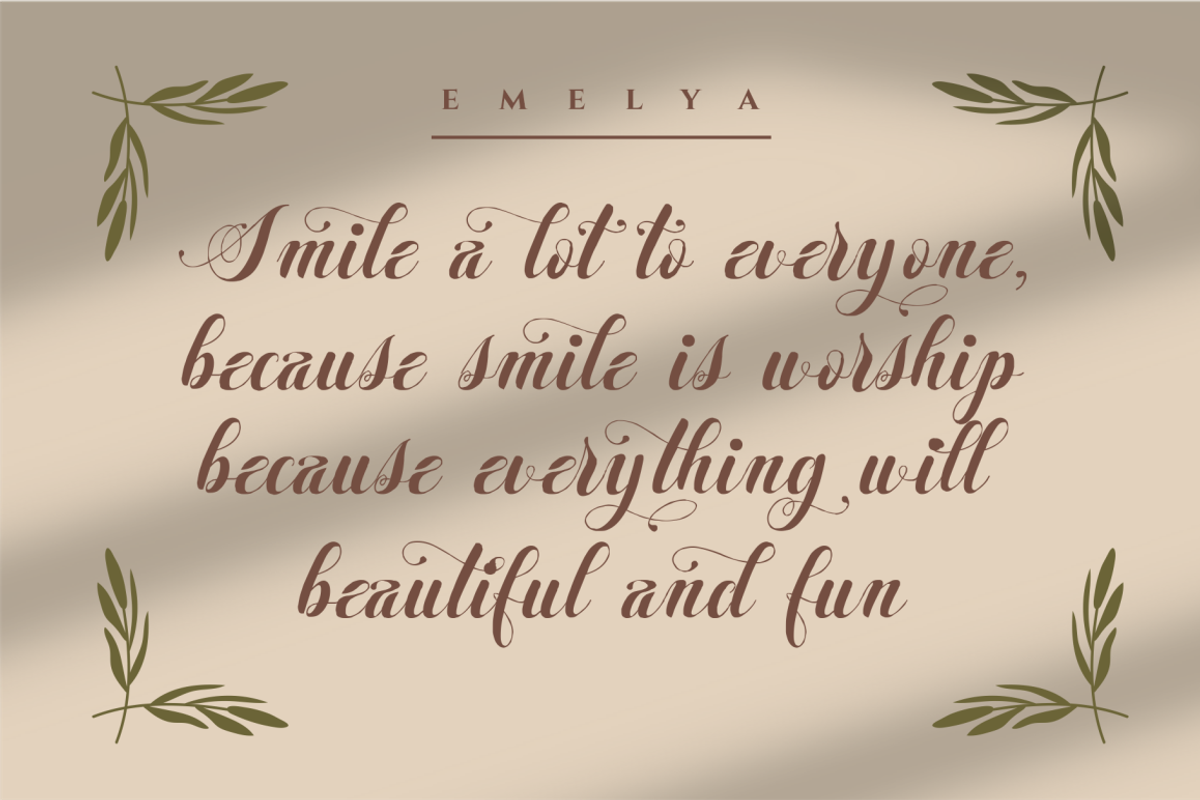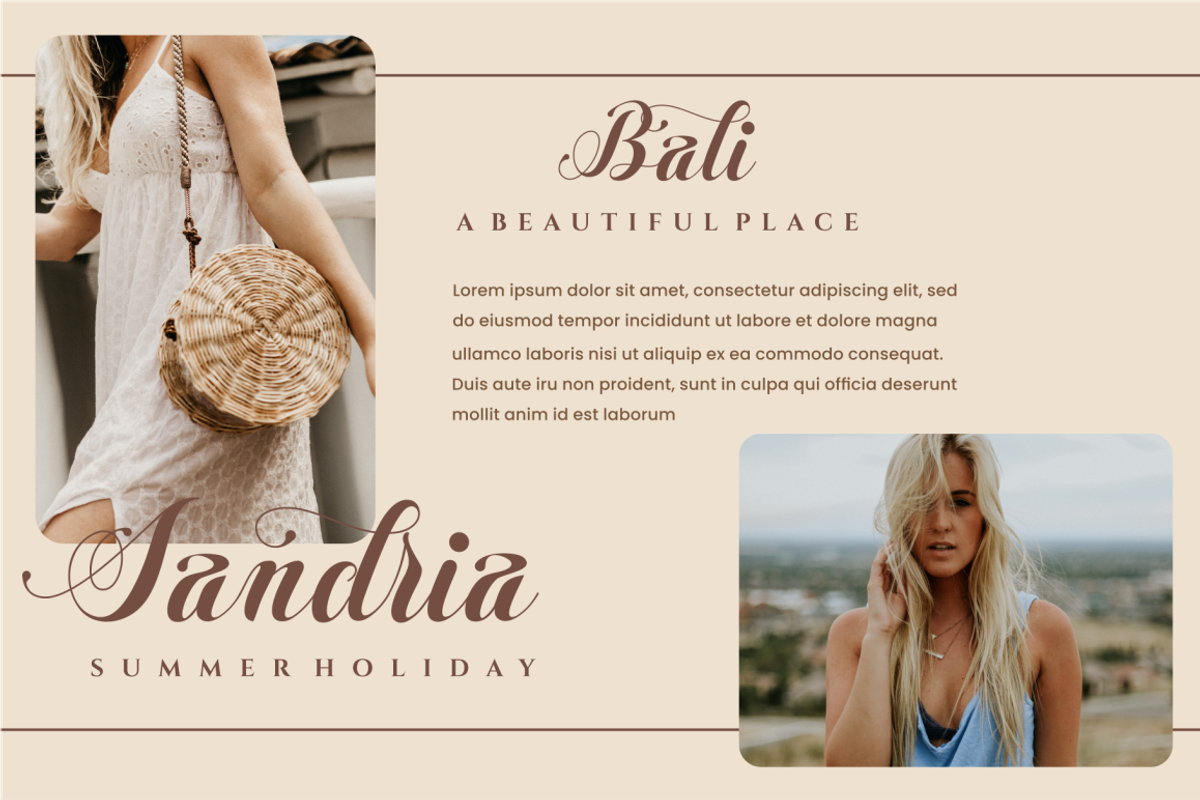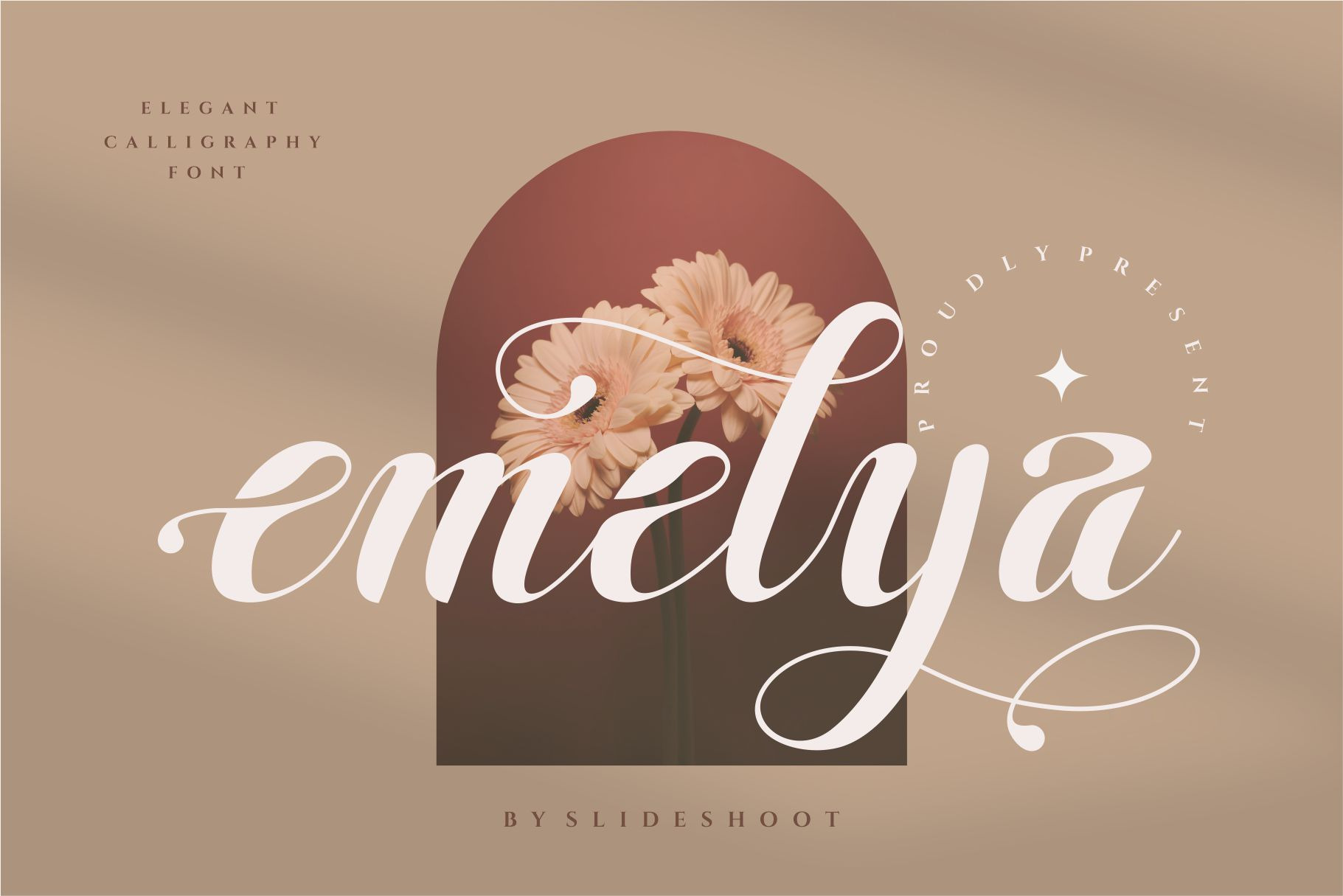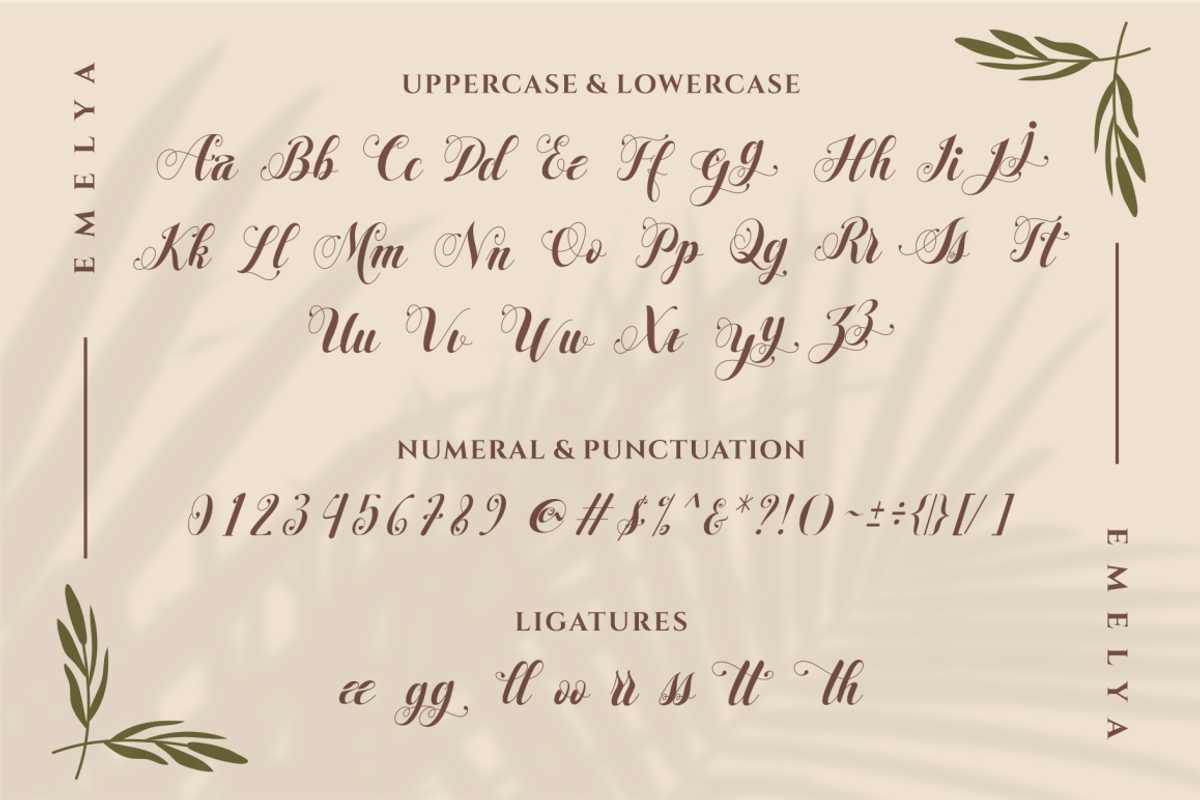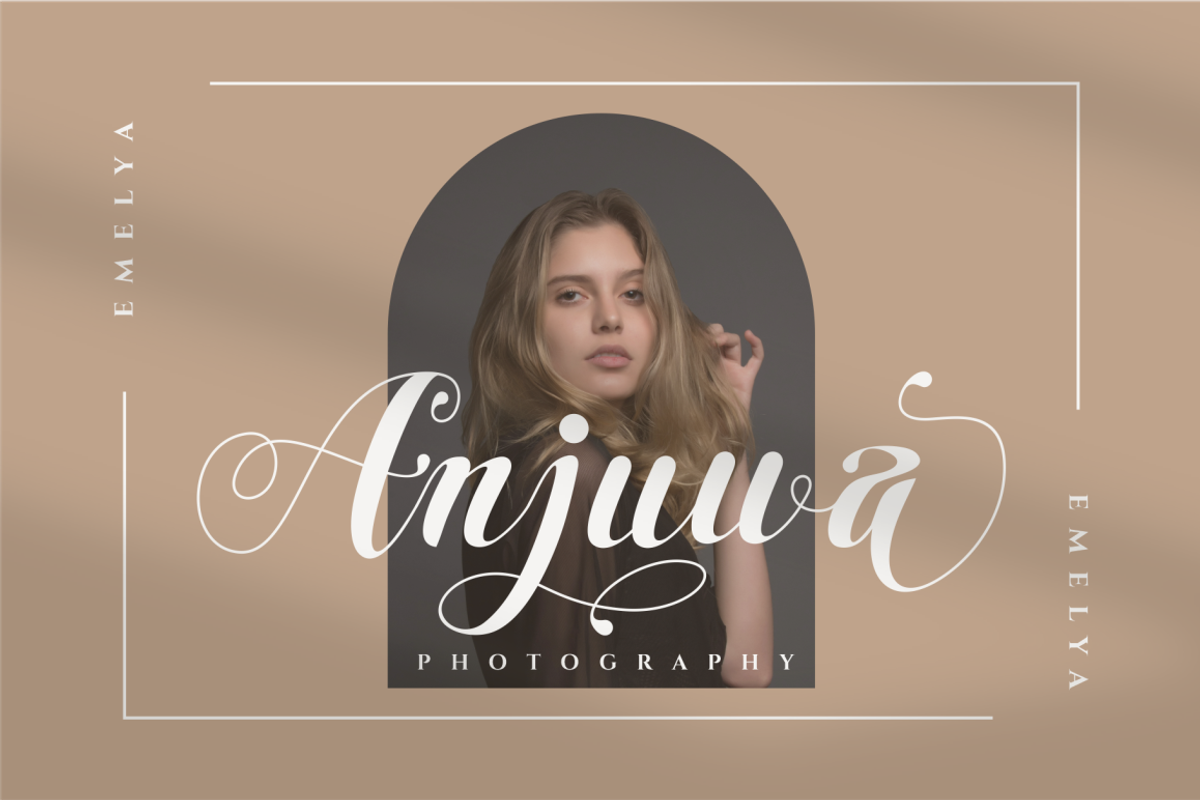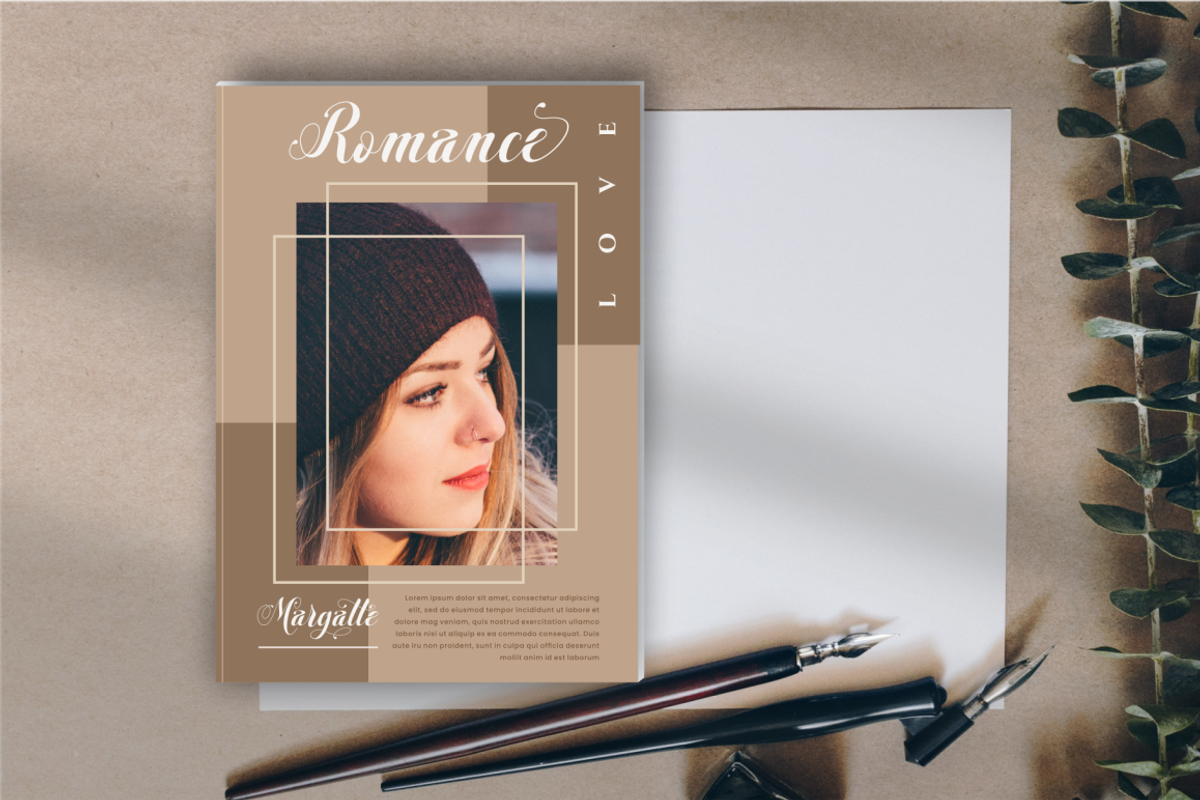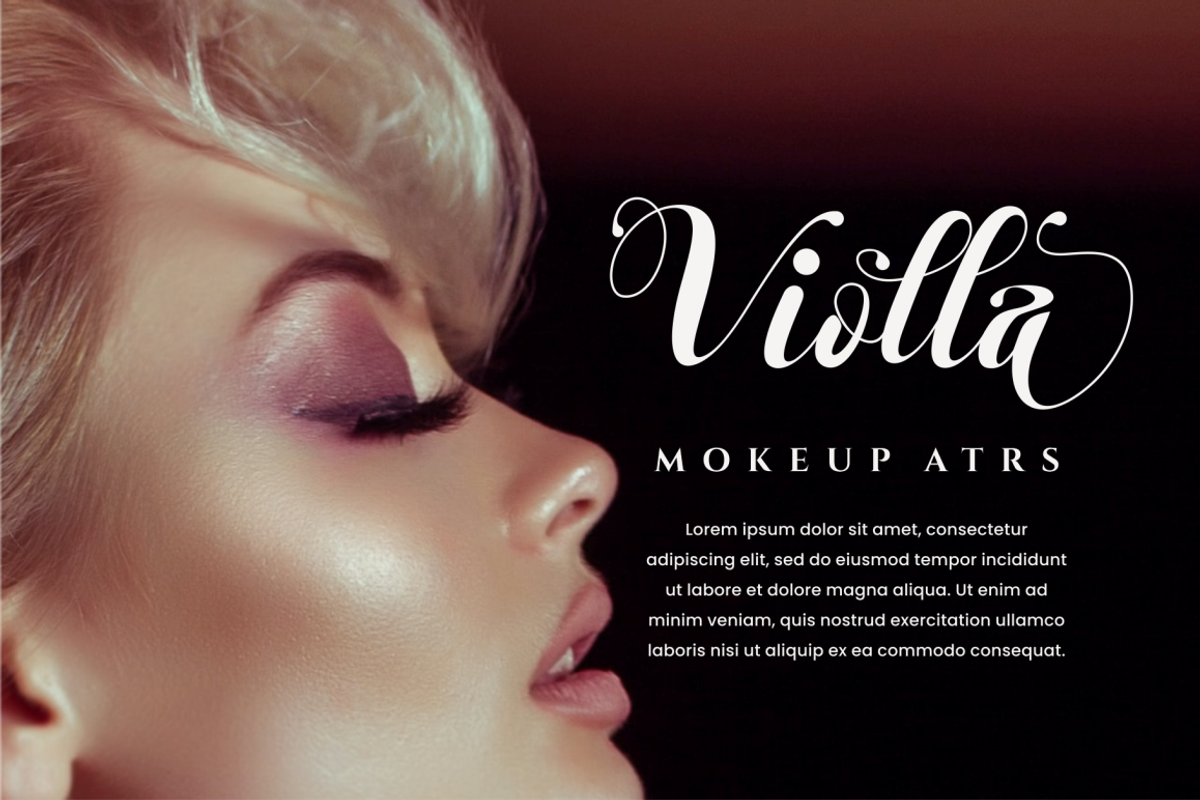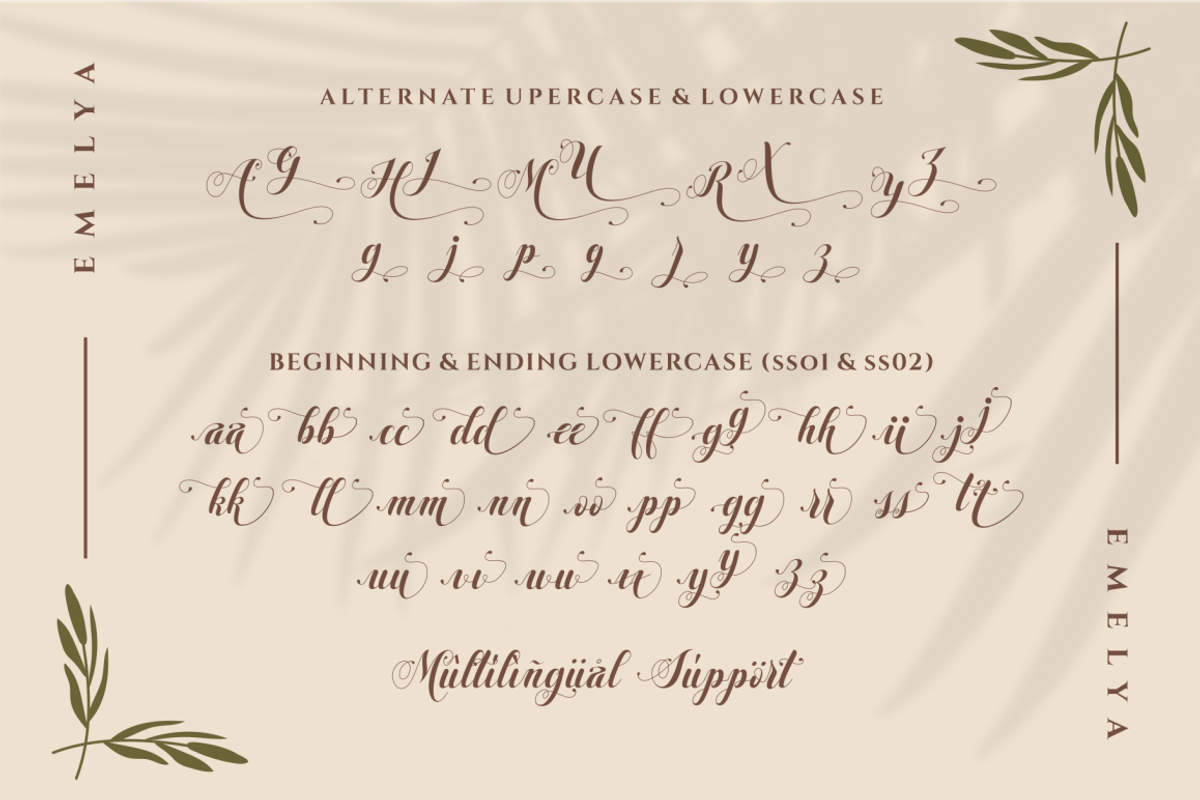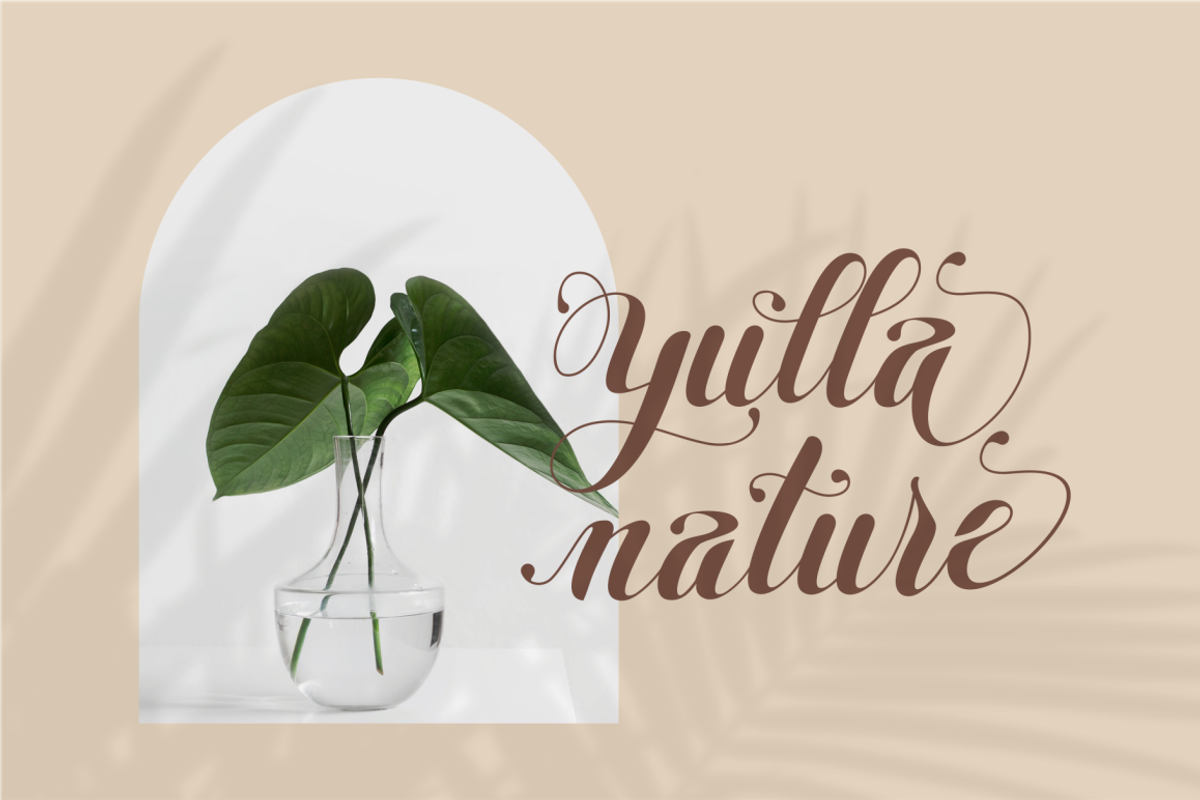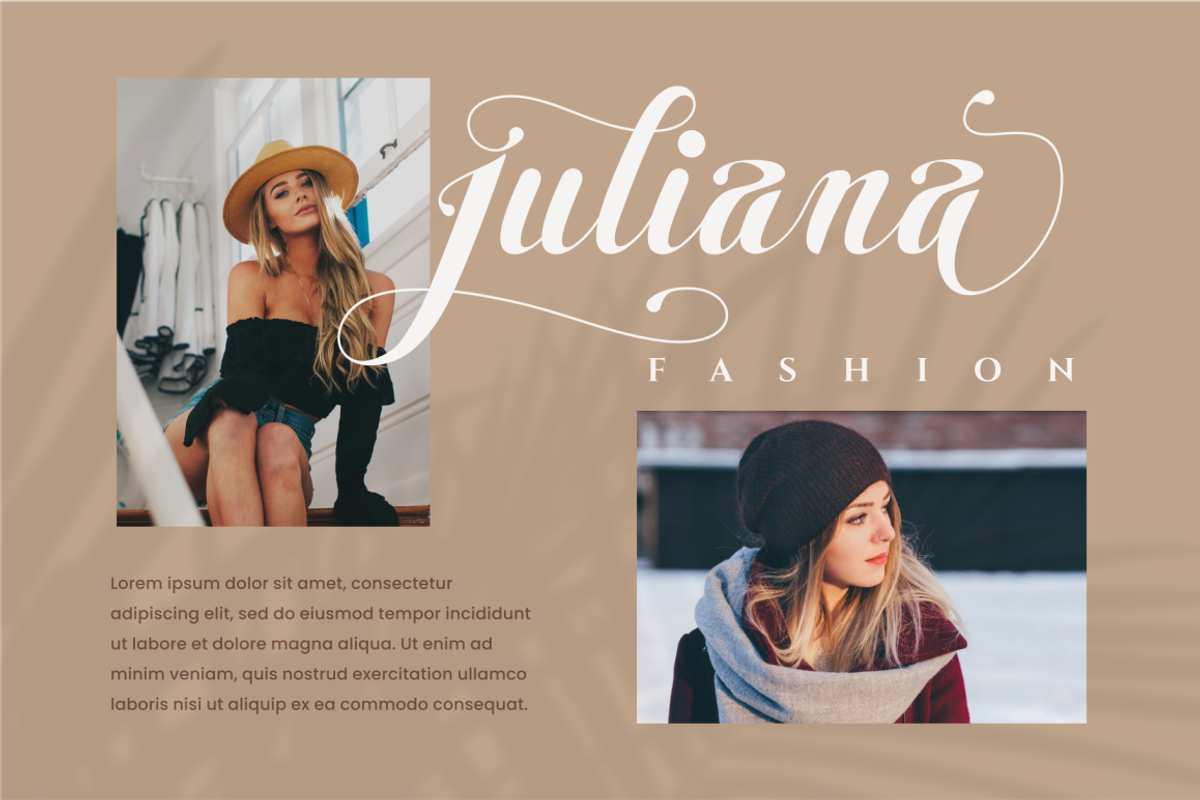
Emelya - Elegant Calligraphy Font
Emelya - Elegant Calligraphy Font Emelya is a dazzling script font. It is neatly crafted and highly detailed. This font is PUA encoded which means you can access all glyphs and swashes with ease!